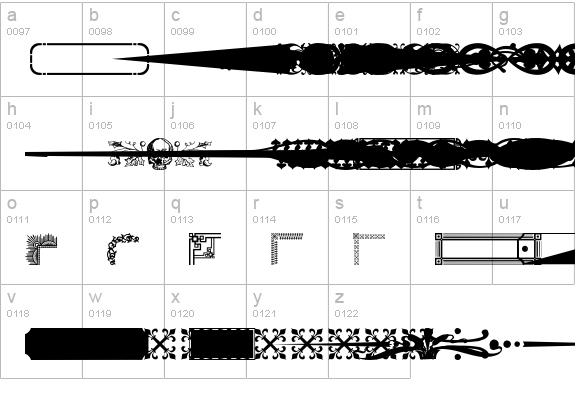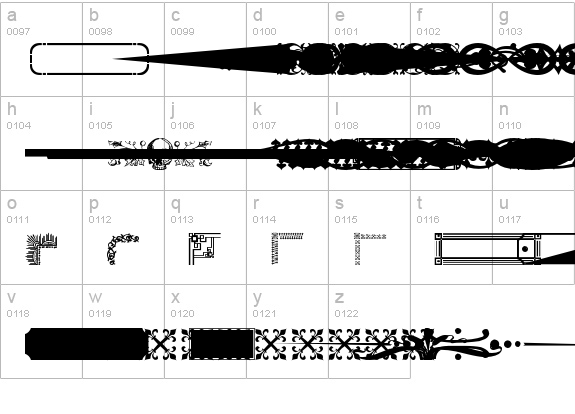
DesignerMixed Font Details
DesignerMixed font is a unique and versatile typeface that combines elements of modern design with a touch of creativity. This font is perfect for adding a stylish and contemporary look to your projects, whether it's for posters, logos, branding, or social media graphics. What makes DesignerMixed font stand out is its blend of clean lines and artistic flair, making it suitable for a wide range of design applications. Whether you're looking to make a bold statement or add a subtle touch of elegance, this font has got you covered. The best part? DesignerMixed font is available for free download at FontsMarket.com. So go ahead and elevate your designs with this eye-catching and modern typeface today!